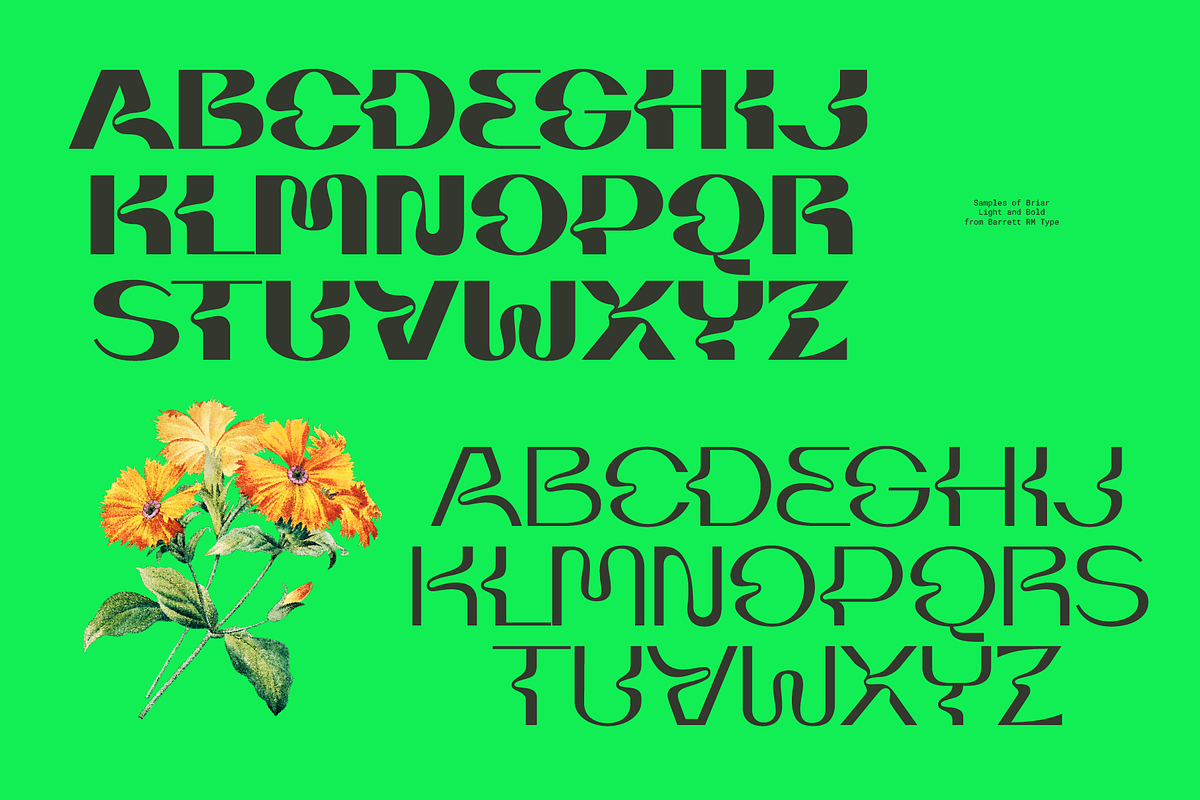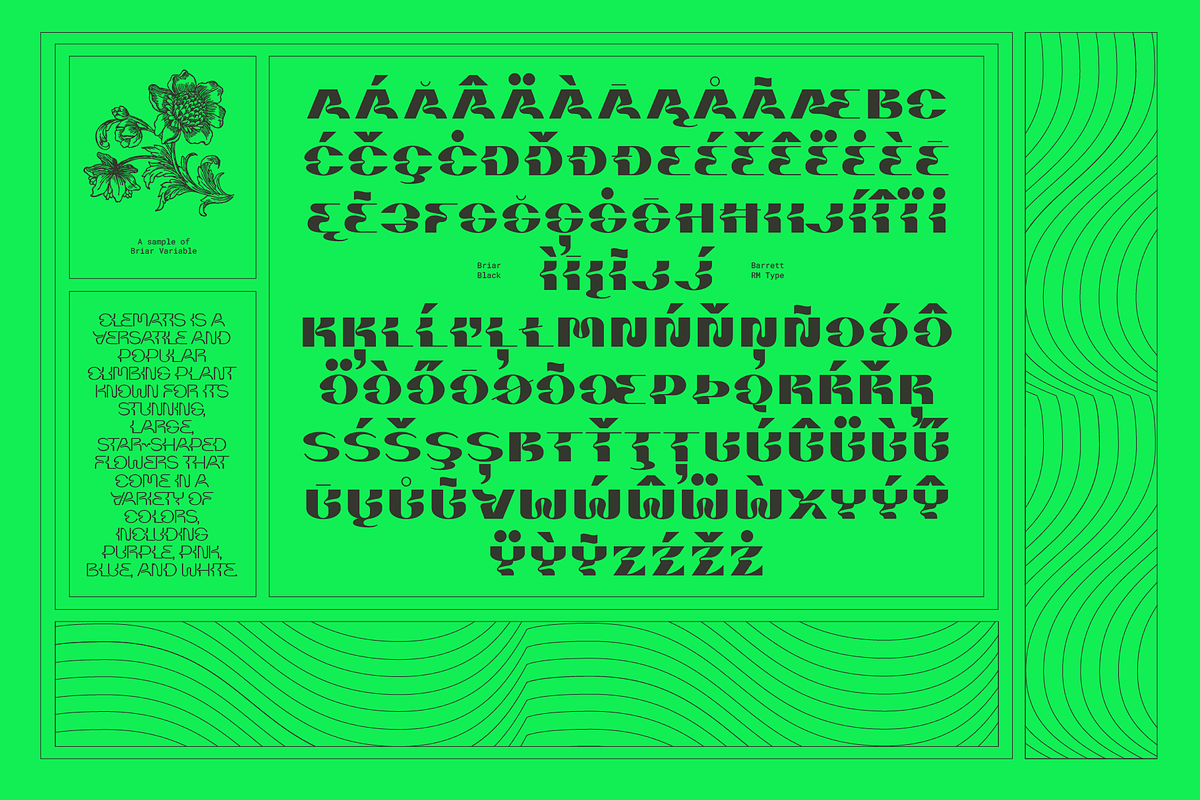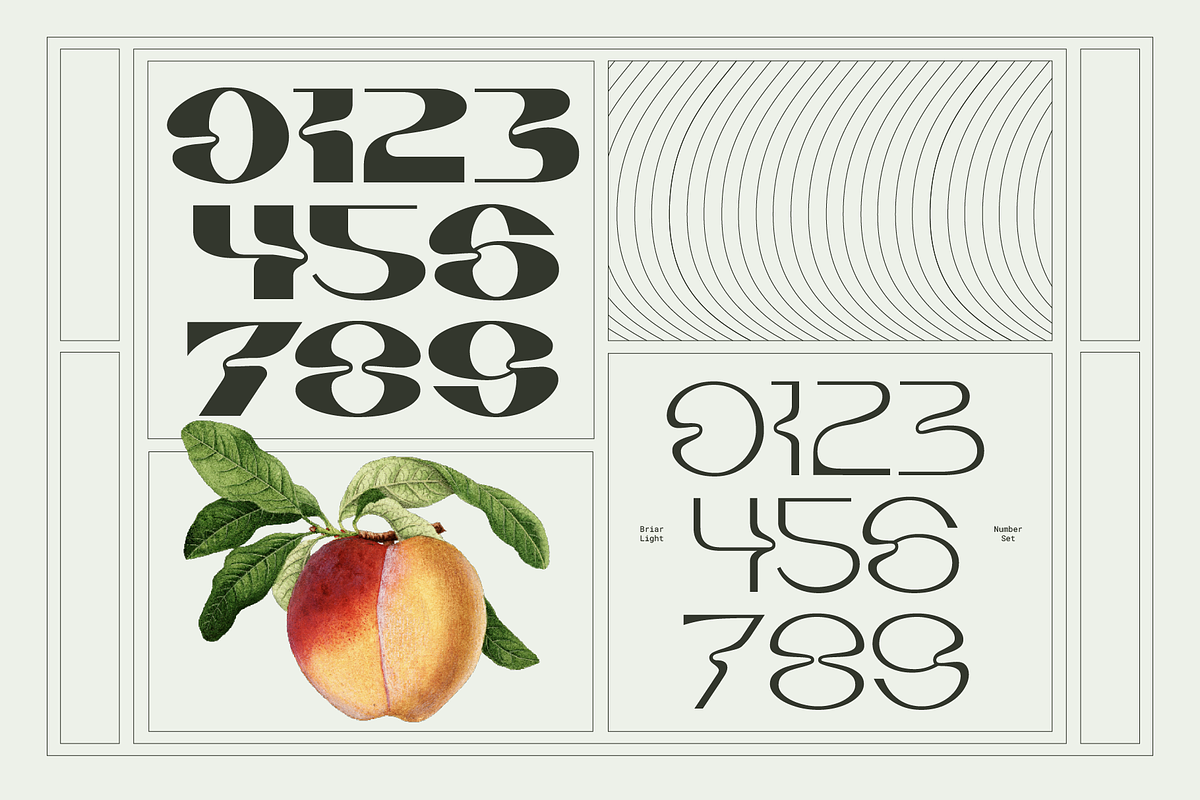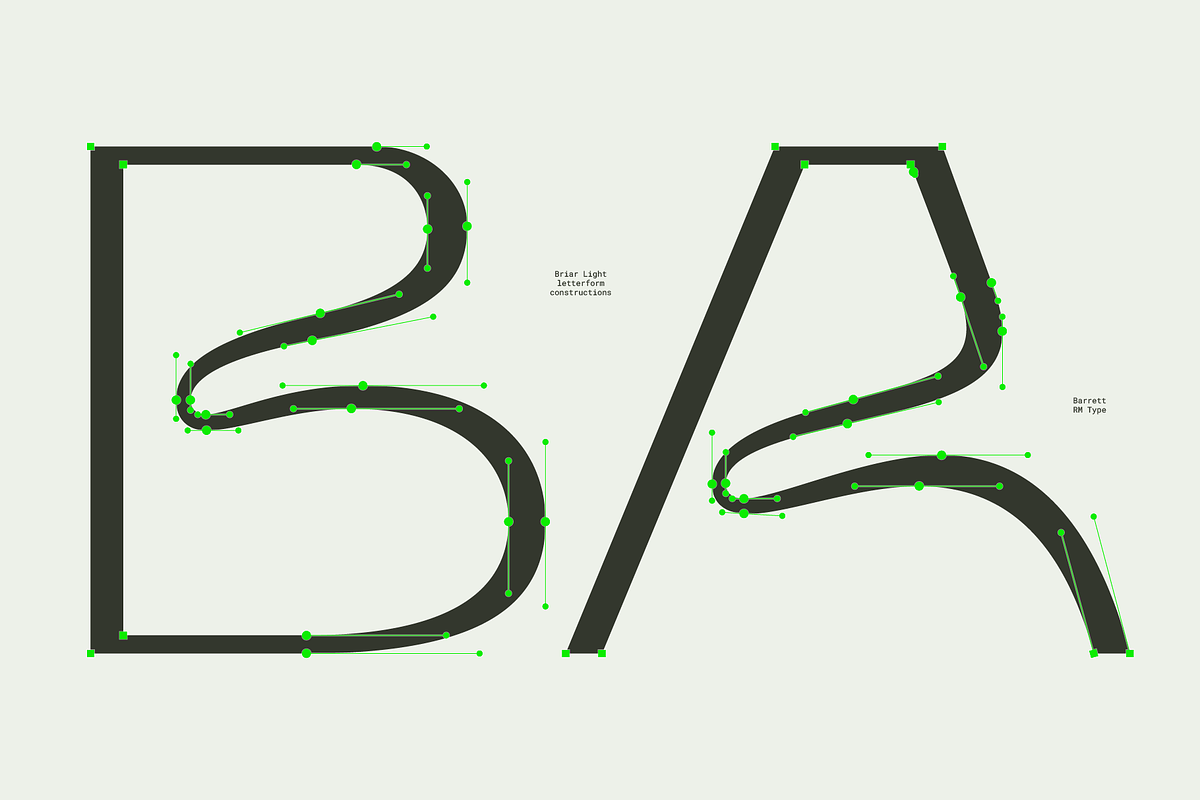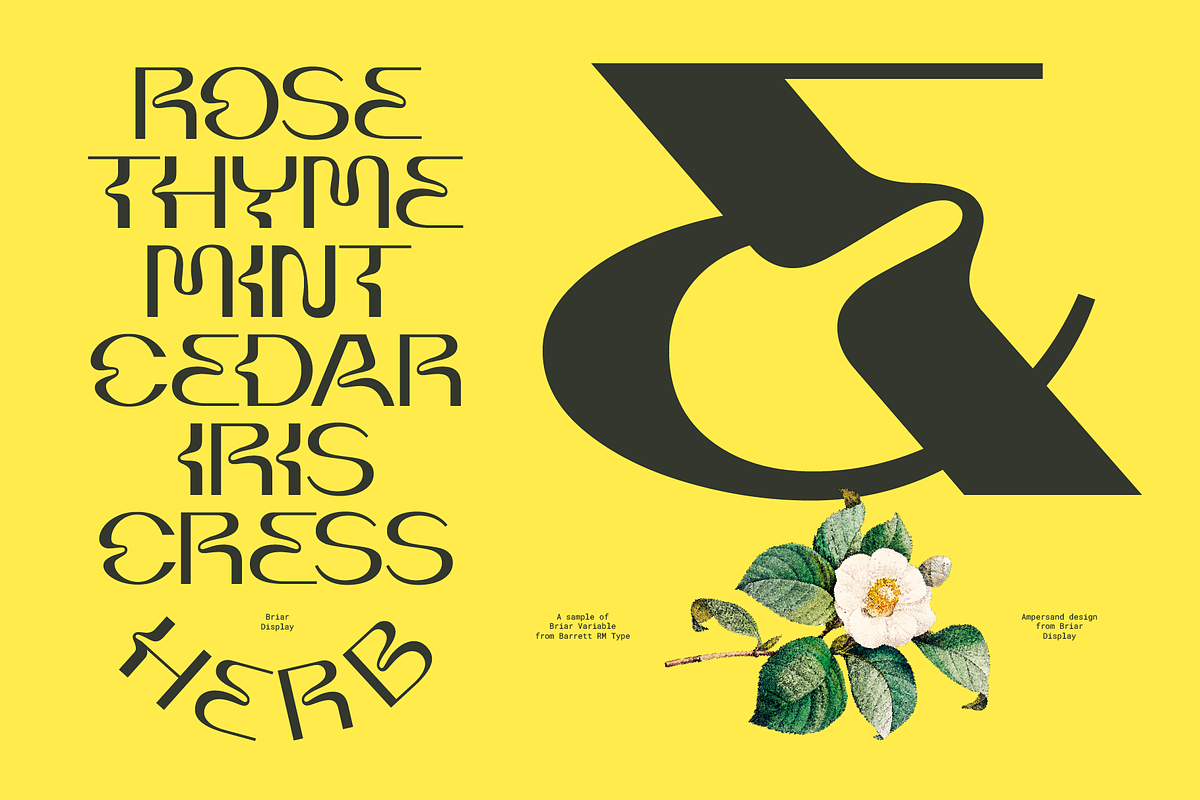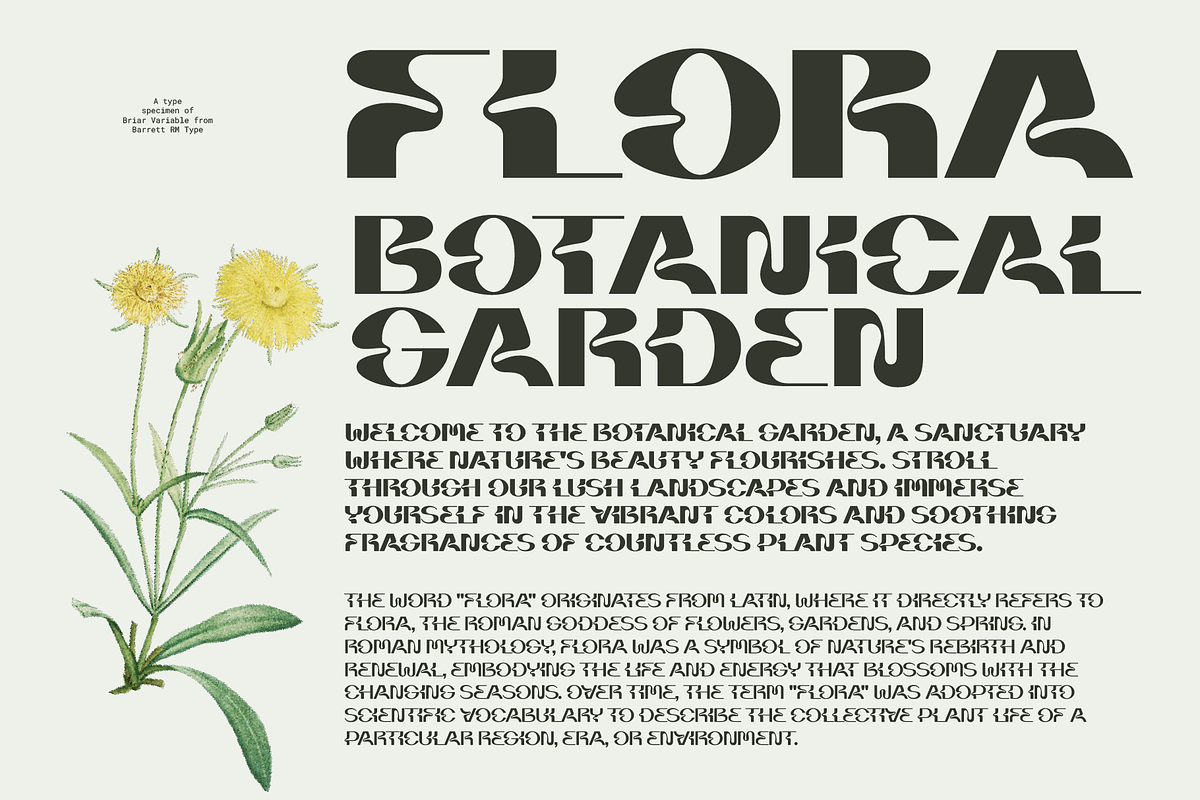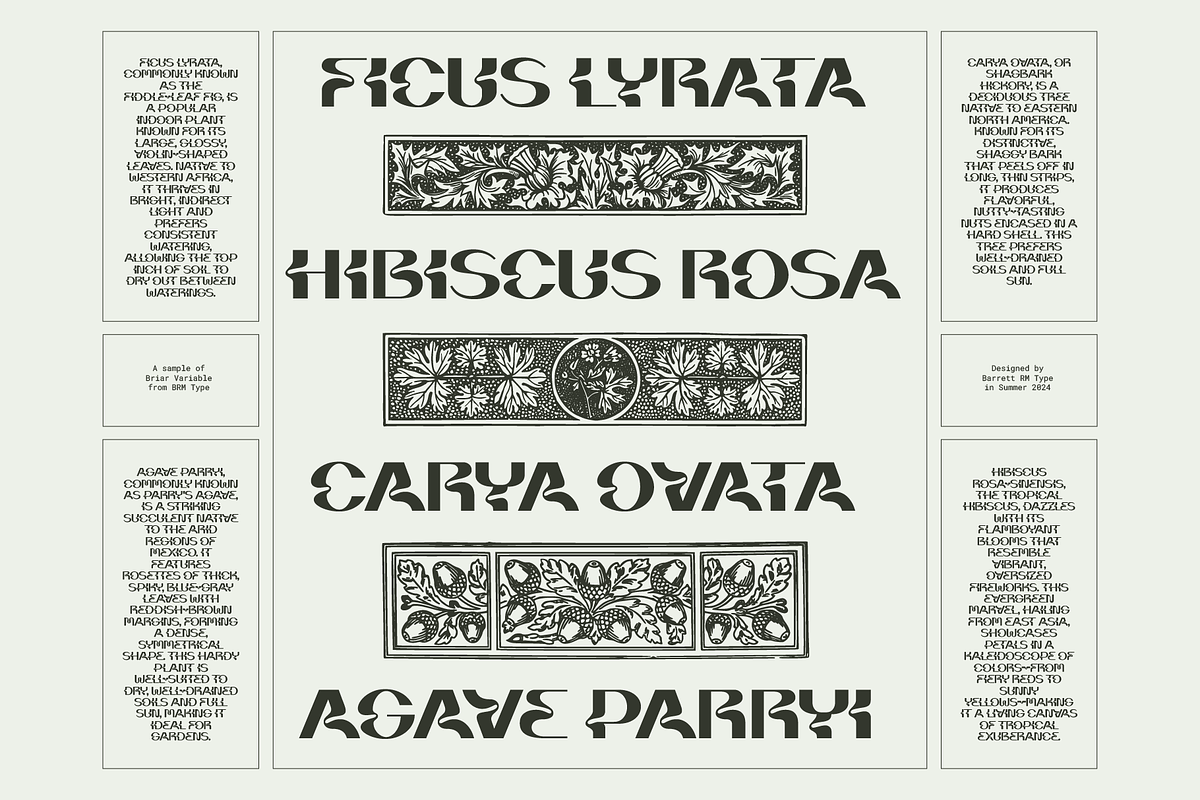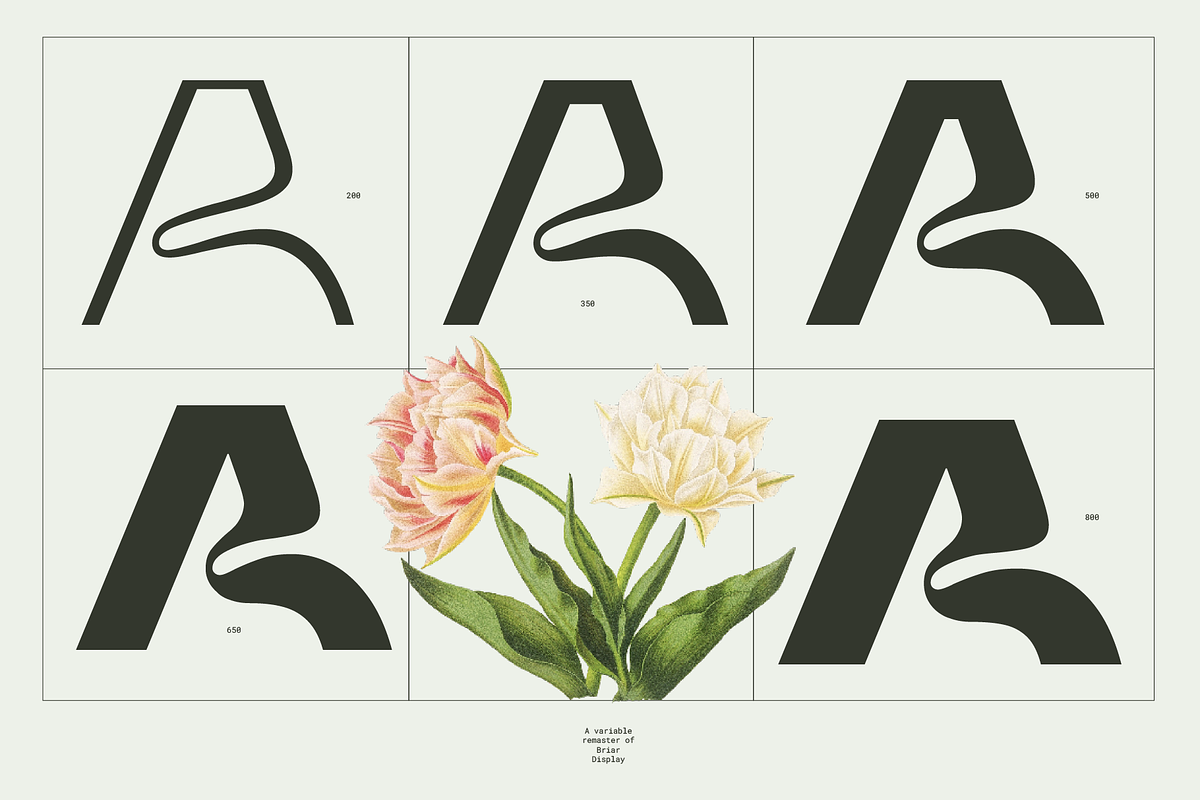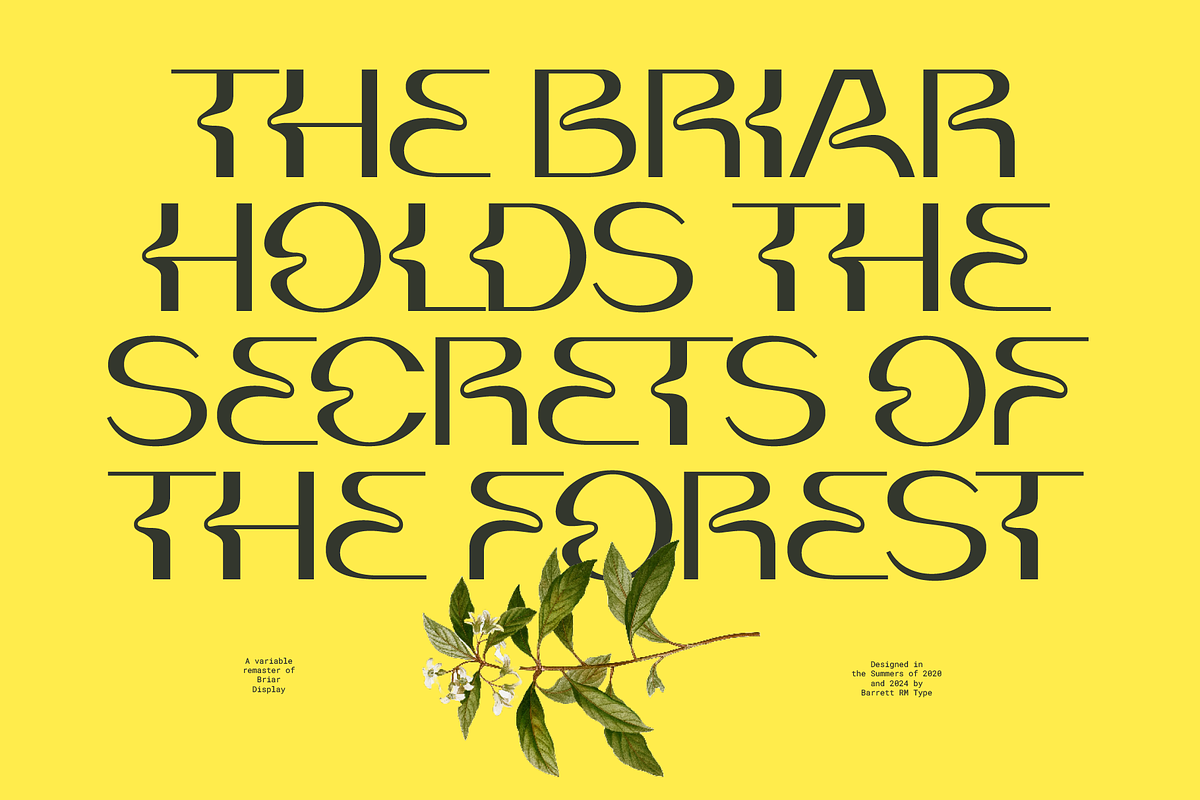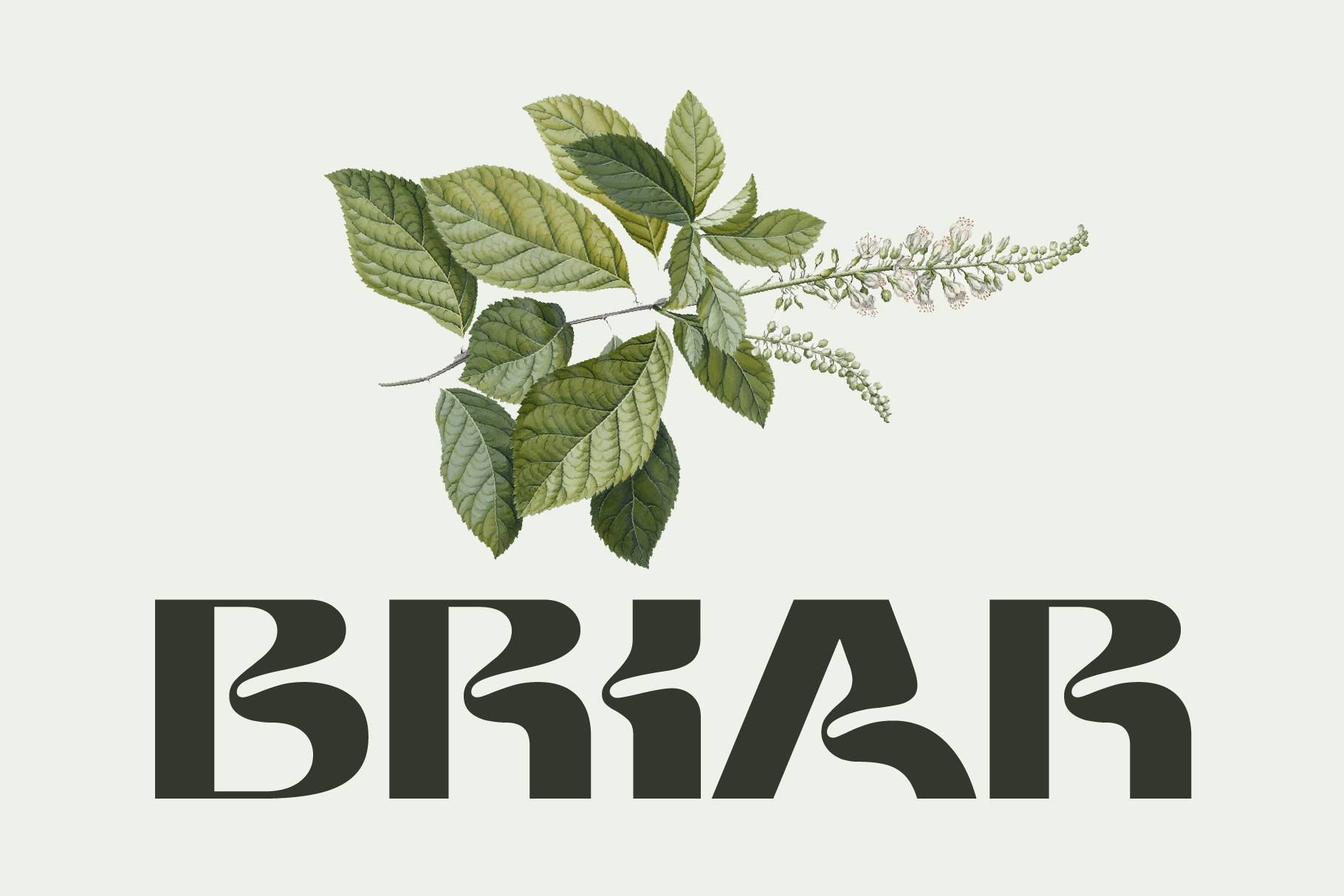
Briar - Fluid Variable Typeface
Briar is an expressive, variable all-caps display typeface with flowing curved letterforms designed to embody the rhythms of nature. Perfect for logotypes, headlines, packaging, posters, album artwork, editorial spreads, and other large-scale display applications, it adds a sense of movement and fluidity to any design.